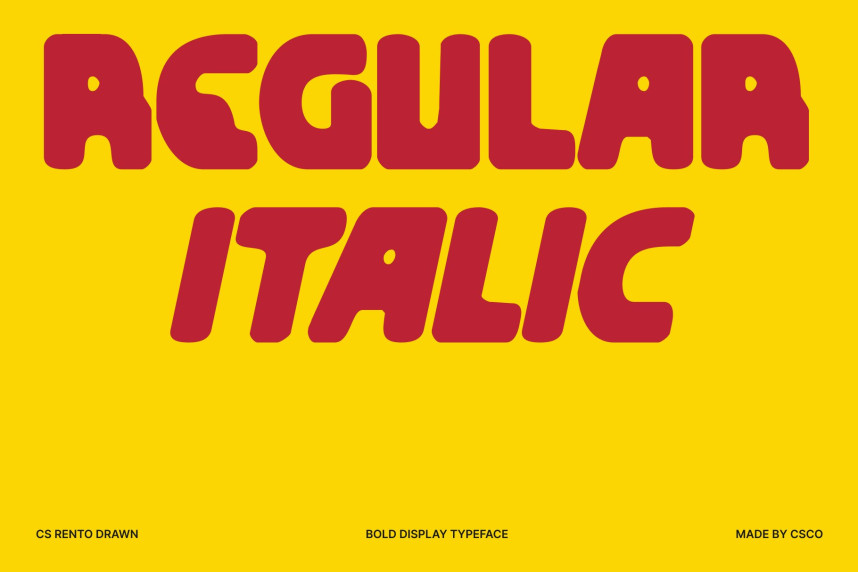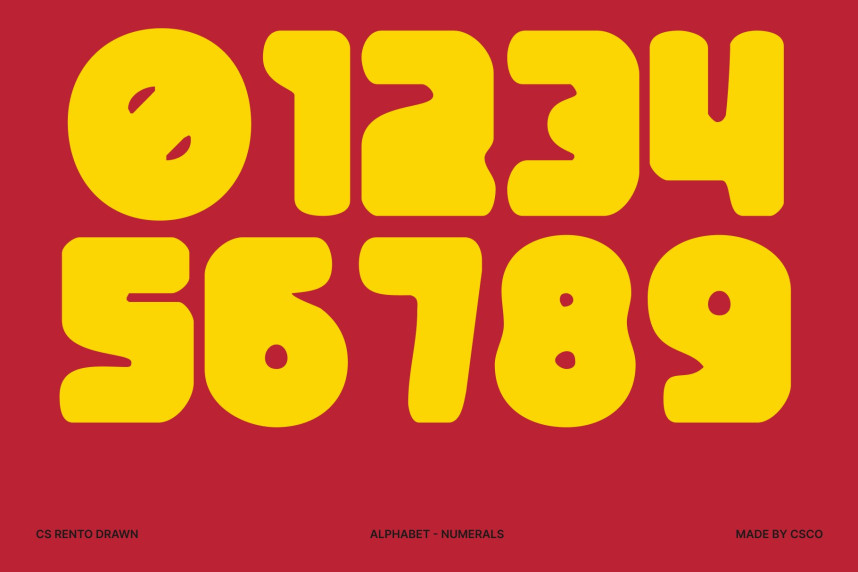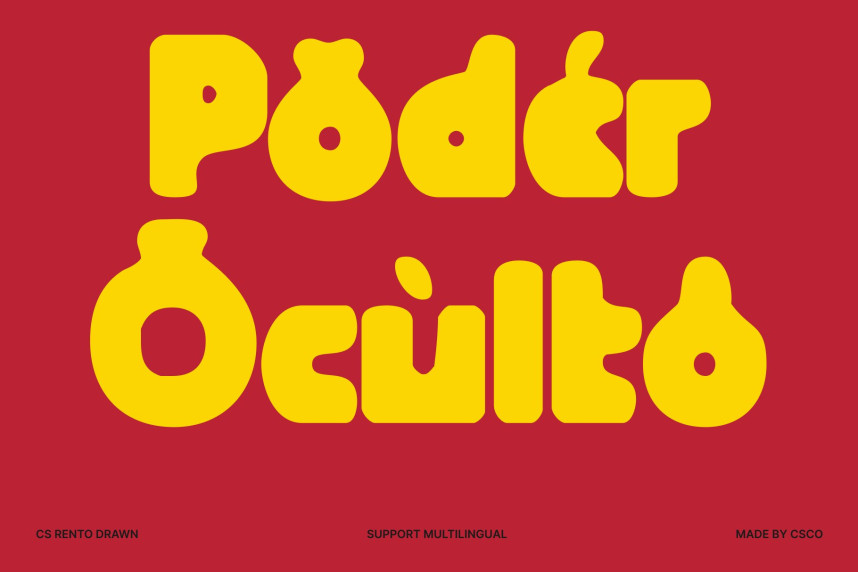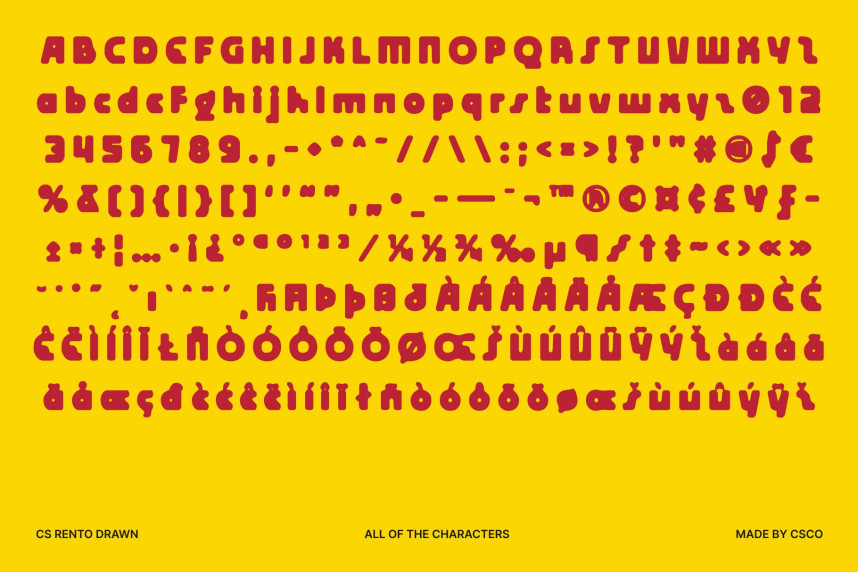
CS Rento Drawn Font
CS Rento Drawn Font – Bold Display Font with Futuristic Calm Bold Geometry with Soft, Hand-Drawn Character. This is a bold display font built from strong geometric foundations combined with smooth, softened contours. Its confident structure delivers clear visual impact, while rounded details and the drawn texture introduce warmth and approachability. This balance allows the font to stand out boldly without feeling rigid or aggressive.